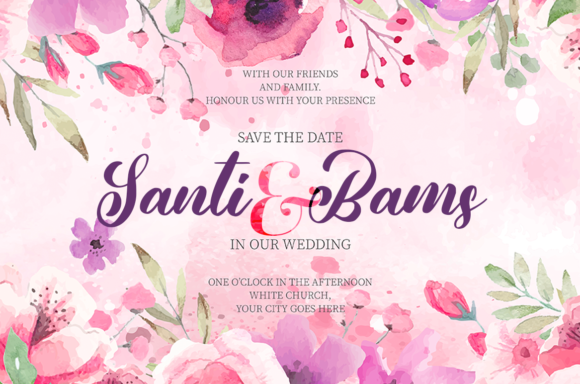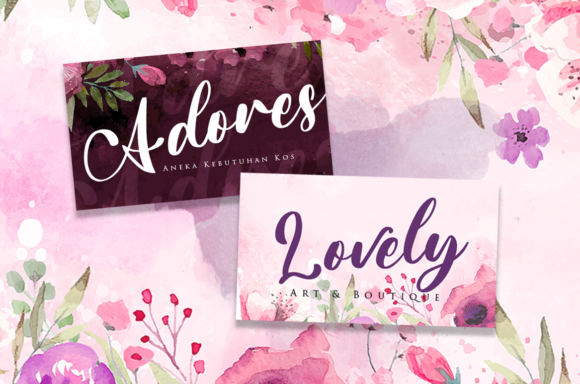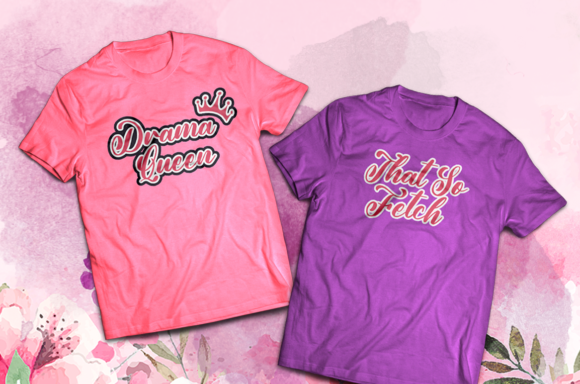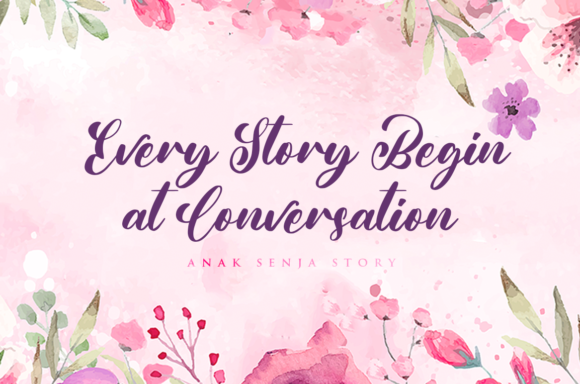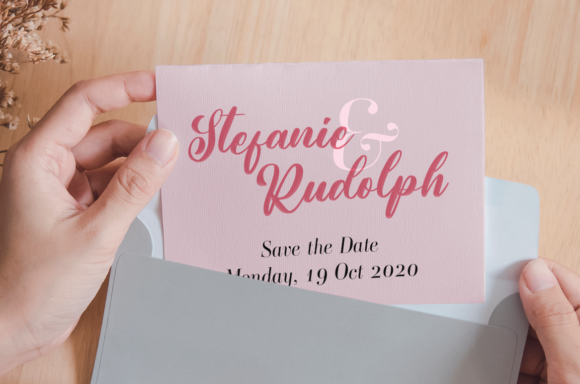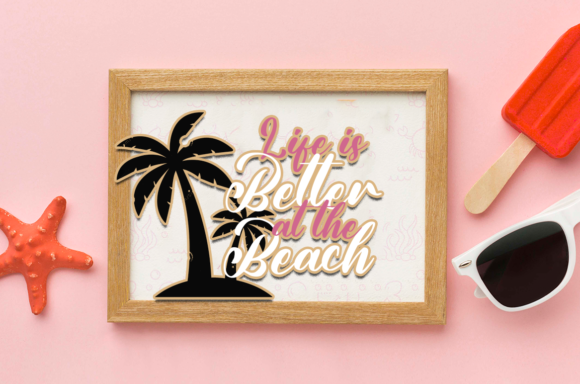
Introducing Blissful Dream Font: The Ultimate Handwritten Script for Creative Expression
Are you a designer, crafty enthusiast, or creative soul looking for the perfect font to bring your imagination to life? Look no further than Blissful Dream Font, a stunning handwritten script that embodies the essence of elegance and playfulness. This beautiful font is designed to add a touch of magic to your creative projects, making it an ideal choice for a wide range of applications, from stationery and branding to packaging and digital media.
The Charm of Blissful Dream Font
Blissful Dream Font is a cute and beautiful handwritten font that boasts an incredibly gentle feel, making it perfect for designs that require a personal and whimsical touch. The font features gorgeous swashes and ligatures that not only add a level of sophistication but also make the script incredibly versatile. Whether you’re looking to create a romantic wedding invitation, a stylish brand logo, or a captivating social media post, Blissful Dream Font is sure to turn your creative idea into a true piece of art.
Key Features of Blissful Dream Font
- Handwritten script: Blissful Dream Font is a genuine handwritten script that exudes warmth and personality, making it perfect for designs that require a human touch.
- Gorgeous swashes and ligatures: The font features beautiful swashes and ligatures that add a level of elegance and sophistication to your designs.
- Incredibly versatile: Blissful Dream Font can be used for a wide range of creative projects, from stationery and branding to packaging and digital media.
- Cute and beautiful: The font’s gentle feel and adorable characters make it perfect for designs that require a playful and whimsical touch.
Blissful Dream Font is an excellent choice for designers and crafters who want to add a personal touch to their creations. Whether you’re a professional designer or a DIY enthusiast, this font is sure to inspire your creativity and help you bring your ideas to life. With Blissful Dream Font, you can:
- Create stunning stationery, such as invitations, greeting cards, and letters.
- Design beautiful brand logos, packaging, and marketing materials.
- Craft captivating social media posts, blog headers, and digital graphics.
- Make unique and personalized gifts, such as customized mugs, t-shirts, and phone cases.
Tips for Using Blissful Dream Font
To get the most out of Blissful Dream Font, here are a few tips to keep in mind:
- Experiment with different sizes and colors: Blissful Dream Font looks great in a variety of sizes and colors, so don’t be afraid to experiment and find the perfect combination for your design.
- Use swashes and ligatures to add flair: The font’s gorgeous swashes and ligatures are perfect for adding a touch of elegance and sophistication to your designs.
- Pair with other fonts for contrast: Blissful Dream Font pairs well with a variety of other fonts, so try combining it with a bold or serif font for added contrast and visual interest.
Blissful Dream Font is a beautiful and versatile handwritten script that’s perfect for designers, crafters, and creative souls who want to add a touch of magic to their creations. With its gorgeous swashes and ligatures, incredibly gentle feel, and cute and beautiful characters, this font is sure to turn your creative ideas into true pieces of art. So why wait? Download Blissful Dream Font today and start bringing your imagination to life!